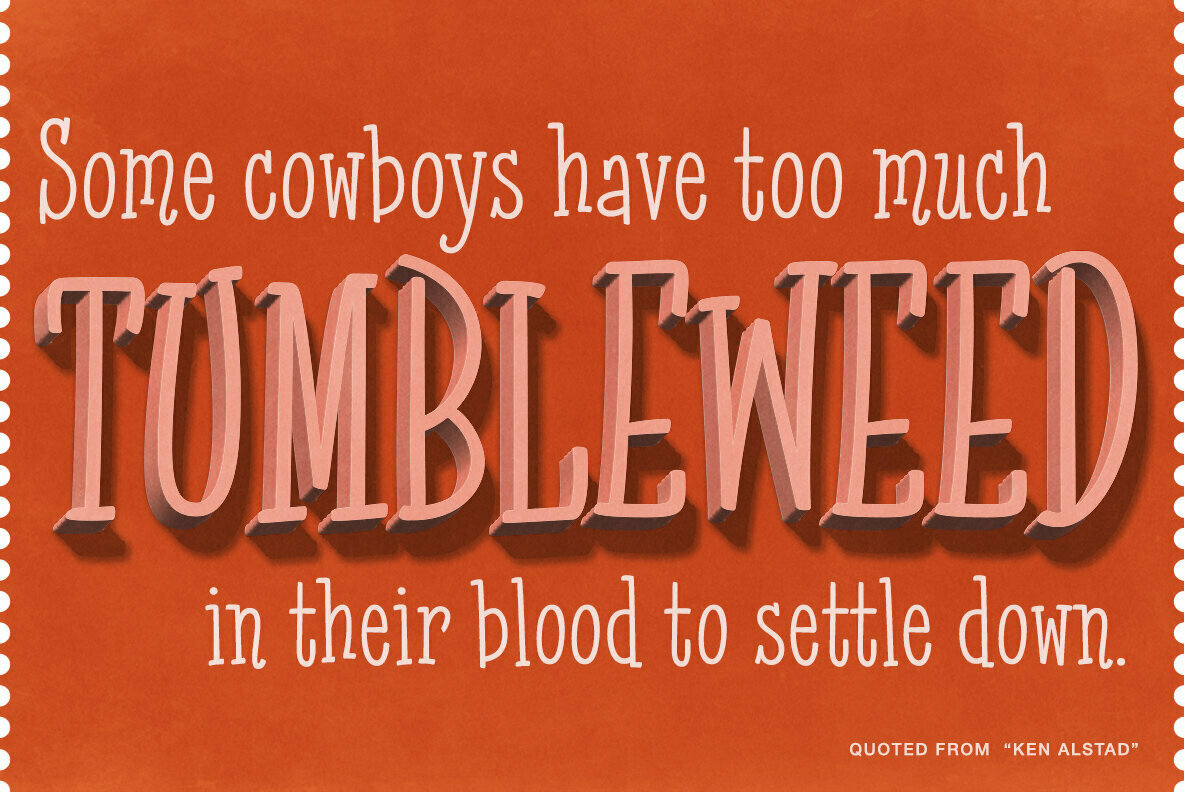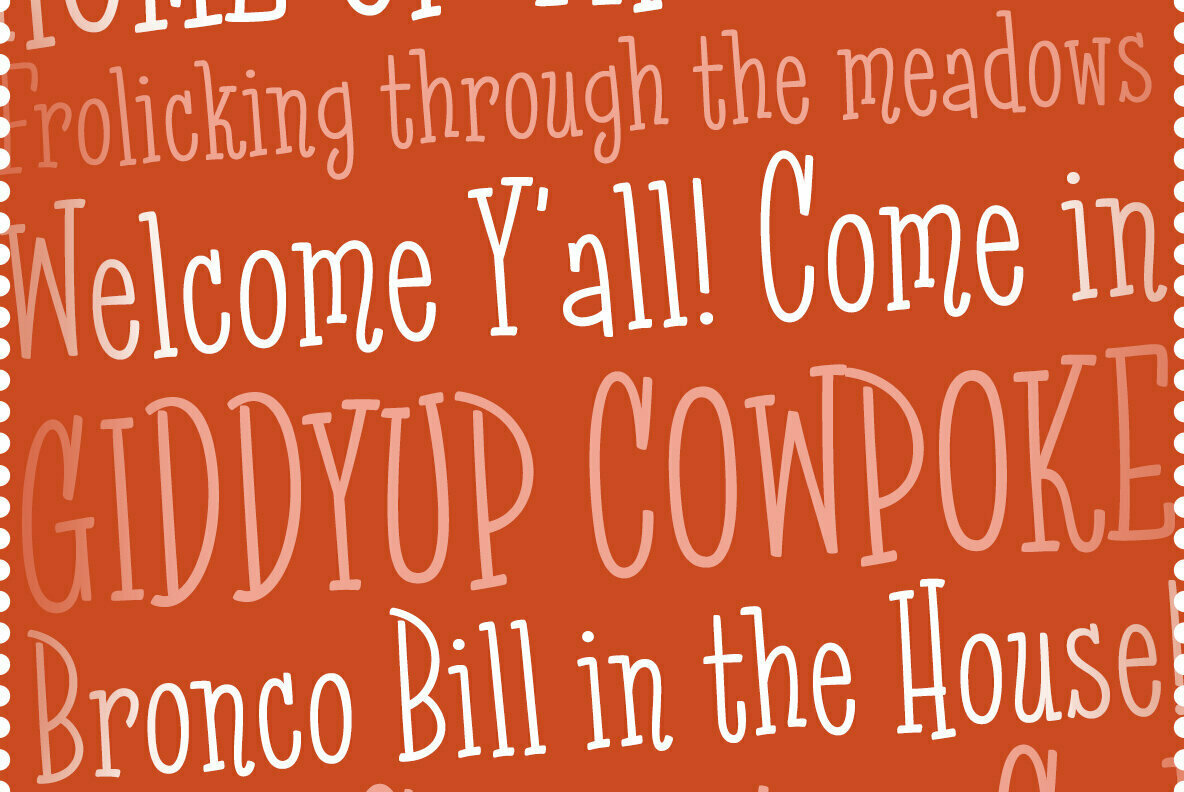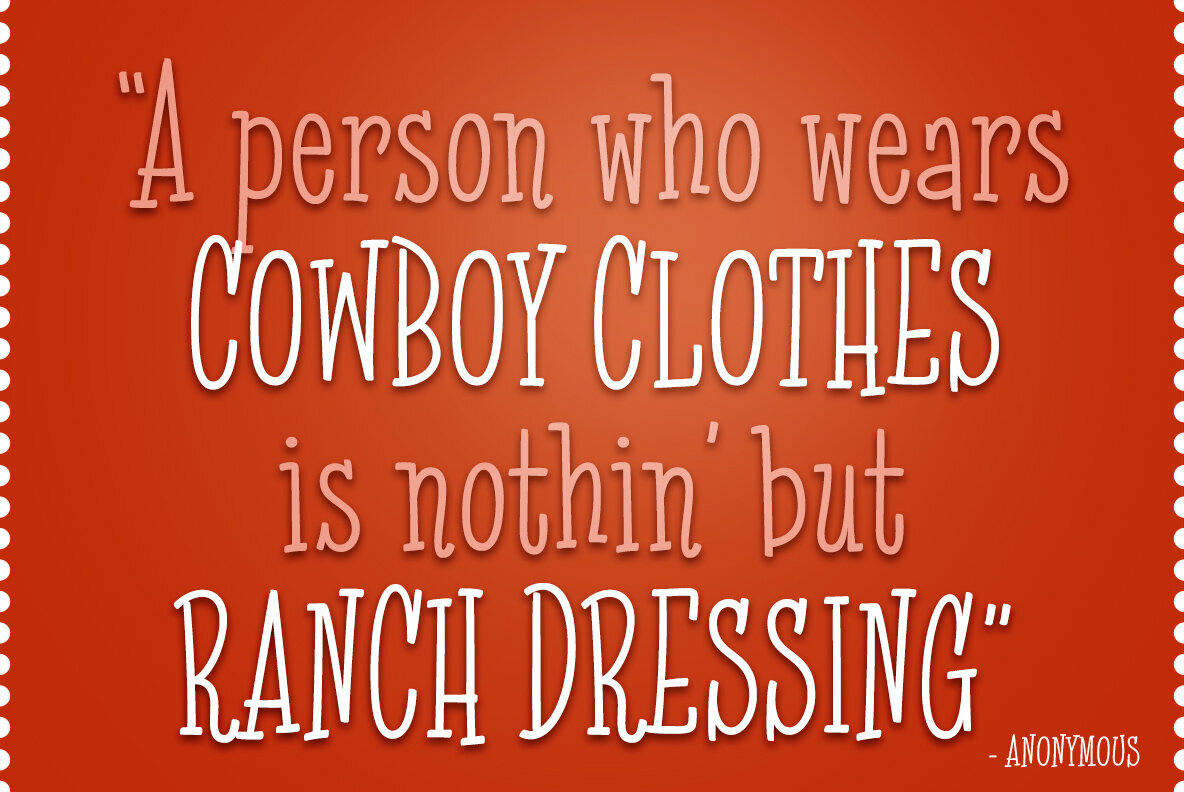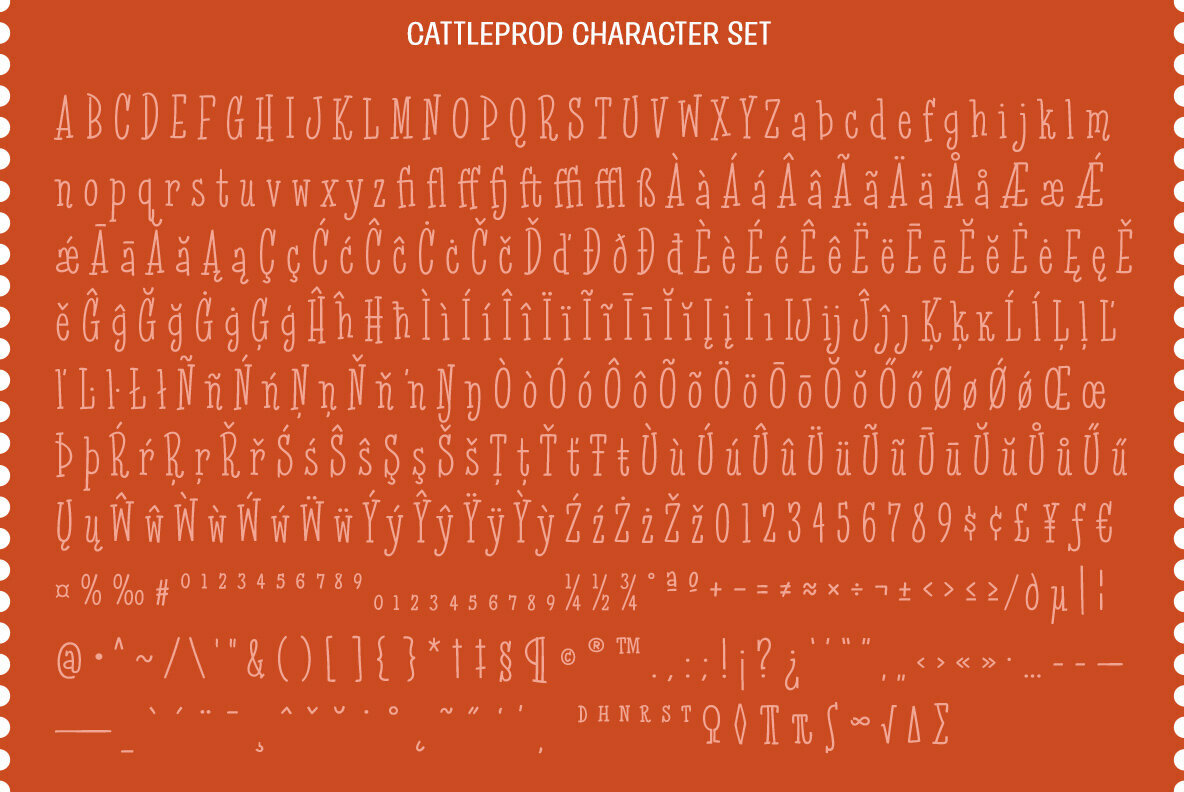
Cattleprod PB Font
Cattleprod PB
Cattleprod is an offbeat slab serif font full of swagger. It was created without any reference, but just the idea of a playful somewhat stumbling stance in mind.